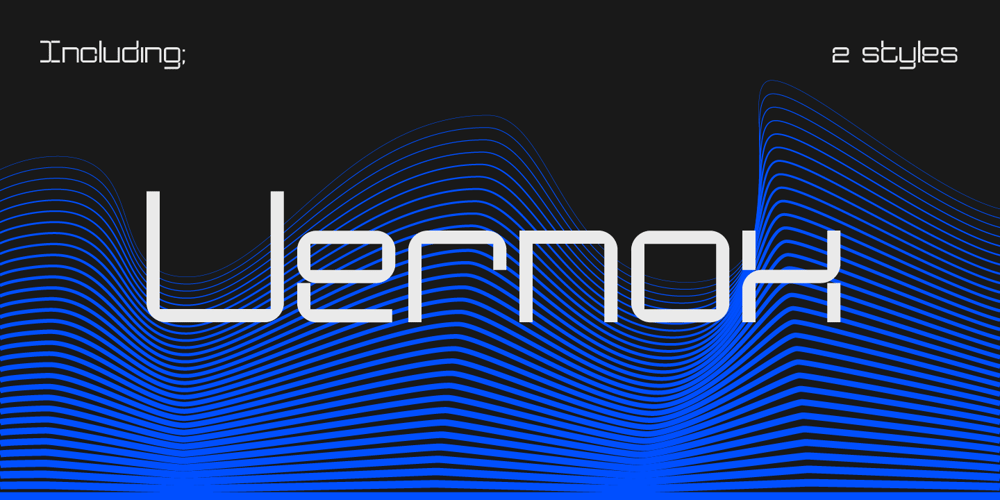
Vernox Font Family was designed by Jurre Latour and published by Latour. Vernox contains 2 styles and family package options. Vernox is a geometric sans serif font inspired by Swiss design. You can completely align the grid to a grid. It is intended for small pieces of text such as titles and qoutes. Vernox comes with 2 weights. It makes perfect for all creative projects.